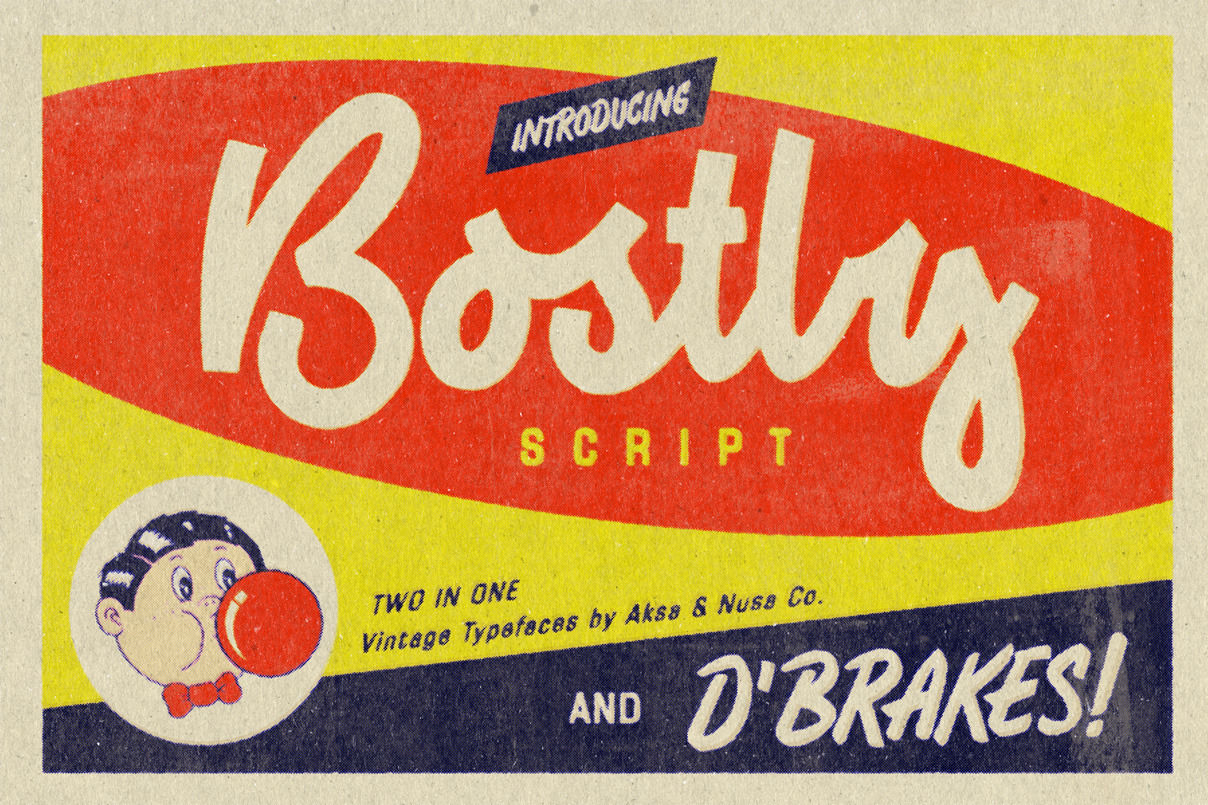
Vintage Fonts Bostly & D'brakes
Bostly & D'brakes. Inspired from vintage typography on poster/ packaging design & vehicle labels from the 1920s to the 1980s.
Perfect for poster, t-shirt graphics, typography art, apparel, logo design, packaging, labels, and other vintage enthusiast.